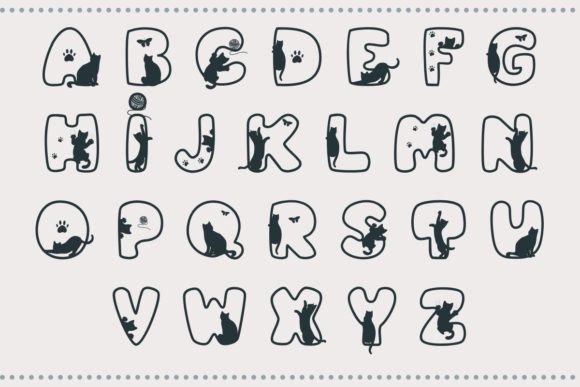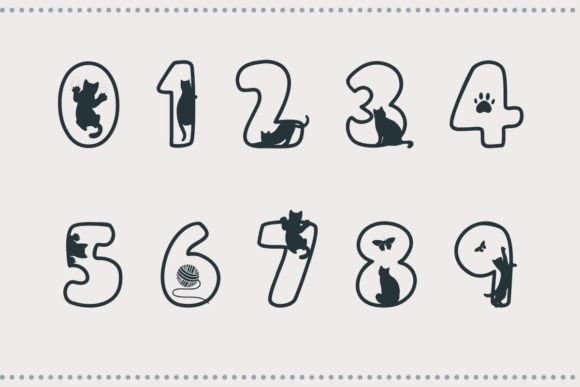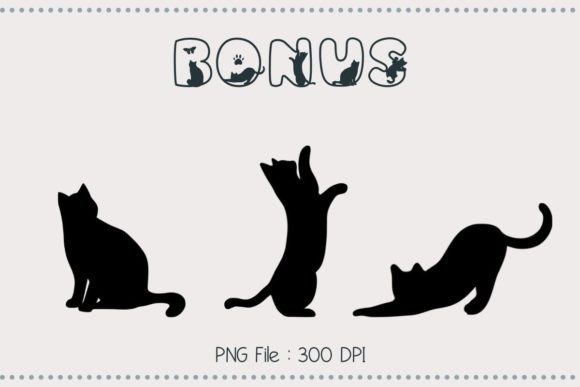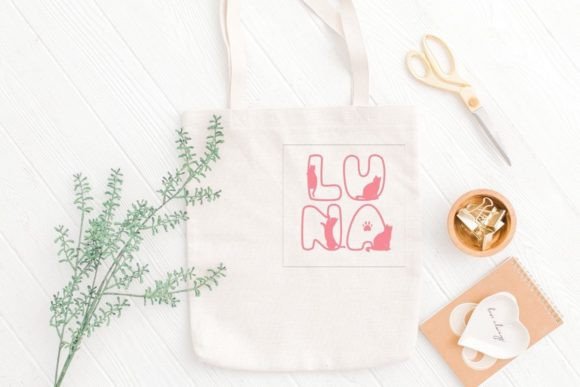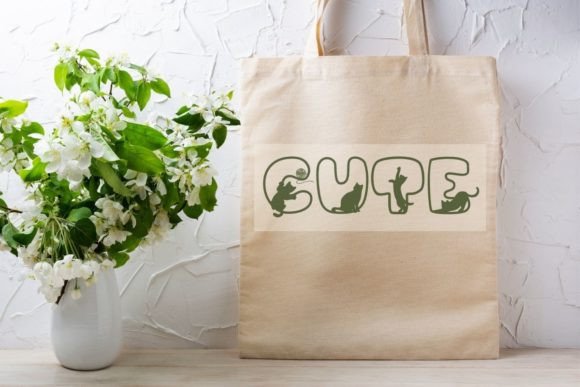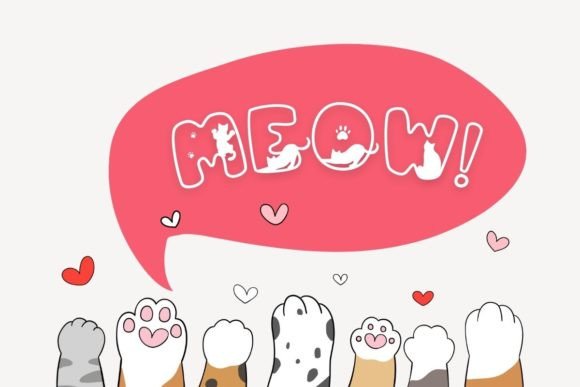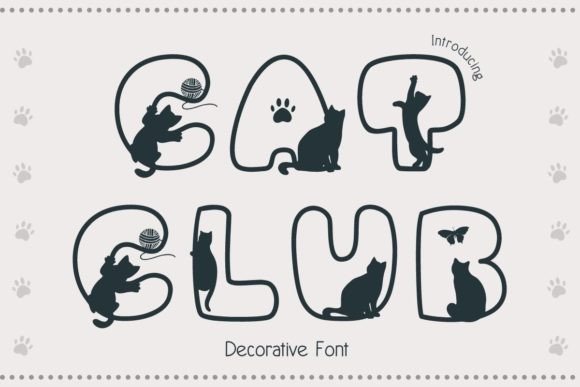
Unleash Your Creativity with CAT CLUB Font: A Cute Decorative Font for Designers and Crafters
Are you a designer or crafter looking for a unique and playful font to add a touch of whimsy to your designs? Look no further than the CAT CLUB font! This adorable decorative font is perfect for creating a wide range of designs that are sure to delight cat lovers and fans of quirky style.
What Makes CAT CLUB Font So Special?
CAT CLUB font is a one-of-a-kind decorative font that combines multiple cat silhouettes with transparent fonts to create a truly unique and eye-catching style. The result is a font that is both cute and quirky, making it perfect for designs that need a bit of personality.
One of the standout features of CAT CLUB font is its versatility. Whether you’re creating banners, social media posts, mugs, cards, shirts, or stationery, this font is sure to add a touch of fun and whimsy to your designs. The font’s playful style is sure to appeal to cat lovers of all ages, making it a great choice for designs that need to appeal to a wide range of audiences.
Uses for CAT CLUB Font
So, what can you create with CAT CLUB font? The possibilities are endless! Here are just a few ideas to get you started:
- Banners: Create eye-catching banners for cat cafes, pet stores, or animal shelters with CAT CLUB font.
- Social Media Posts: Add a touch of whimsy to your social media posts with CAT CLUB font. Perfect for cat lovers and fans of quirky style.
- Mugs: Design adorable mugs for cat lovers with CAT CLUB font.
- Cards: Create one-of-a-kind greeting cards for cat lovers with CAT CLUB font.
- Shirts: Design fun and quirky t-shirts with CAT CLUB font.
- Stationery: Add a touch of personality to your stationery with CAT CLUB font.
Why Designers and Crafters Love CAT CLUB Font
CAT CLUB font is a must-have for designers and crafters who love to create unique and playful designs. Here are just a few reasons why:
- Unique Style: CAT CLUB font has a truly unique and eye-catching style that’s sure to stand out.
- Versatility: Use CAT CLUB font for a wide range of designs, from banners to social media posts.
- High-Quality: CAT CLUB font is a high-quality font that’s perfect for professional designs.
Tips for Using CAT CLUB Font
Here are a few tips for getting the most out of CAT CLUB font:
- Experiment with Colors: CAT CLUB font looks great in a variety of colors, so don’t be afraid to experiment and find the perfect color for your design.
- Pair with Other Fonts: CAT CLUB font pairs well with a variety of other fonts, so try pairing it with your favorite font for a unique look.
- Use for Headlines: CAT CLUB font is perfect for headlines and titles, so use it to add a touch of personality to your designs.
| Font Name | Cat Club Font |
| Author | AnningArts |
CAT CLUB font is a must-have for designers and crafters who love to create unique and playful designs. With its cute and quirky style, versatility, and ease of use, this font is perfect for a wide range of designs. Whether you’re creating banners, social media posts, mugs, cards, shirts, or stationery, CAT CLUB font is sure to add a touch of fun and whimsy to your designs. So why wait? Download CAT CLUB font today and start creating your own unique and eye-catching designs!